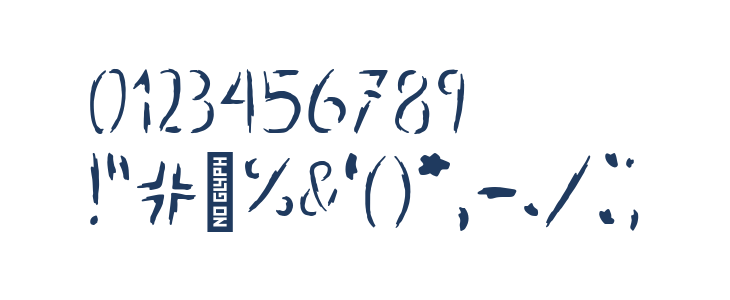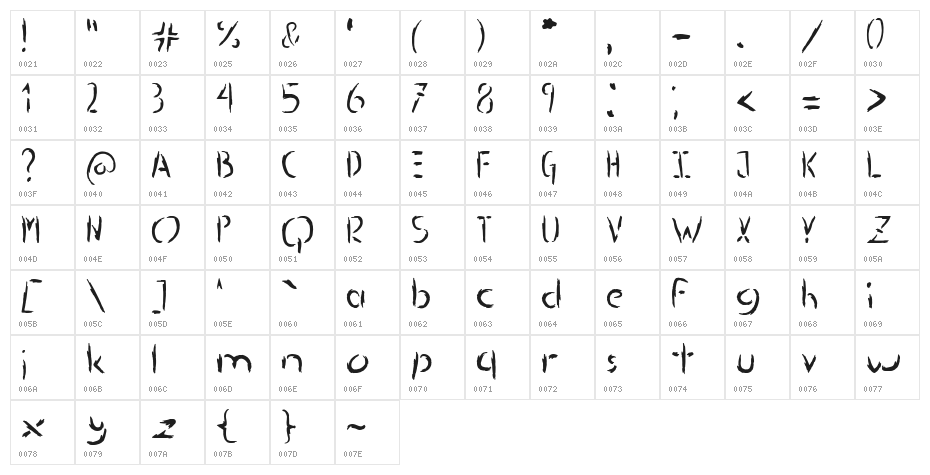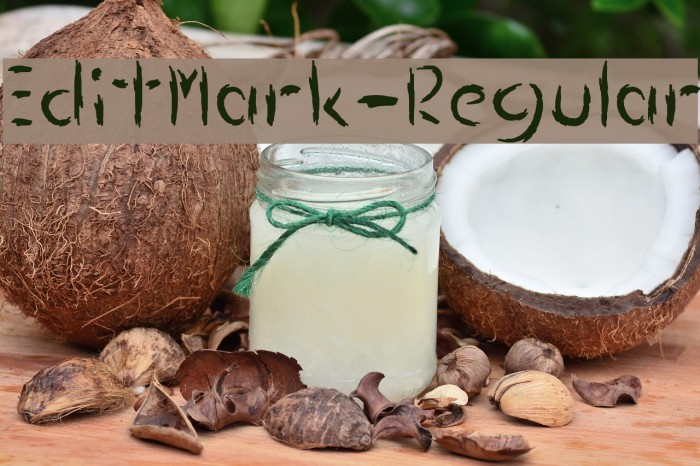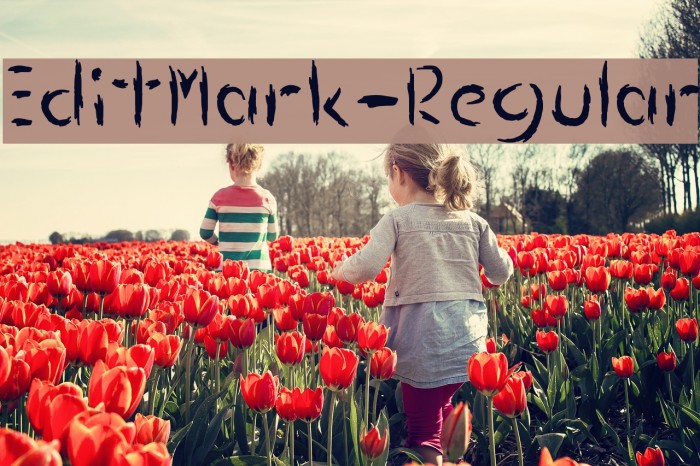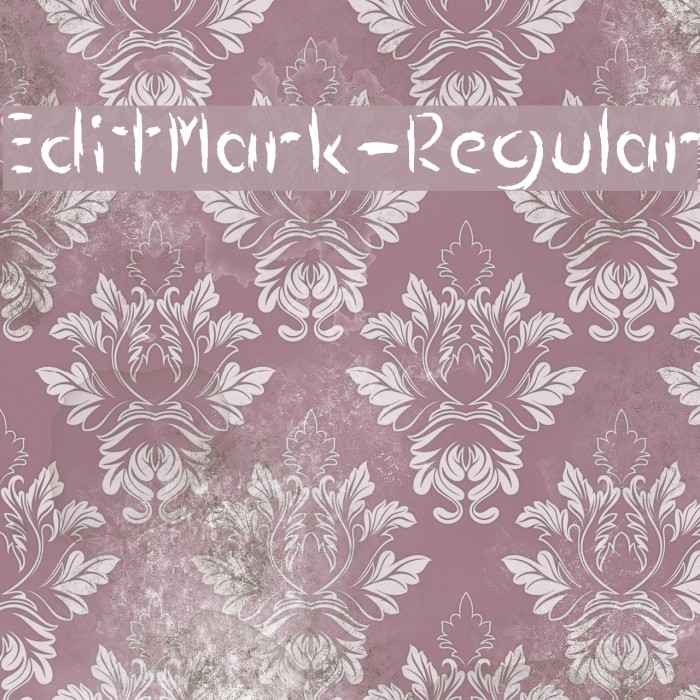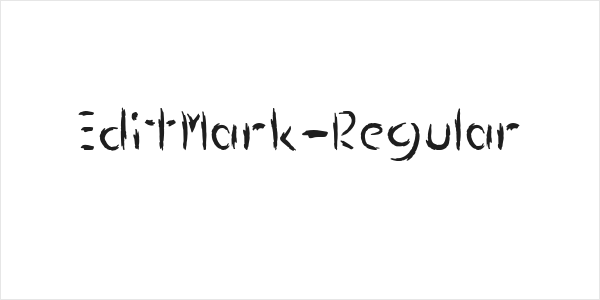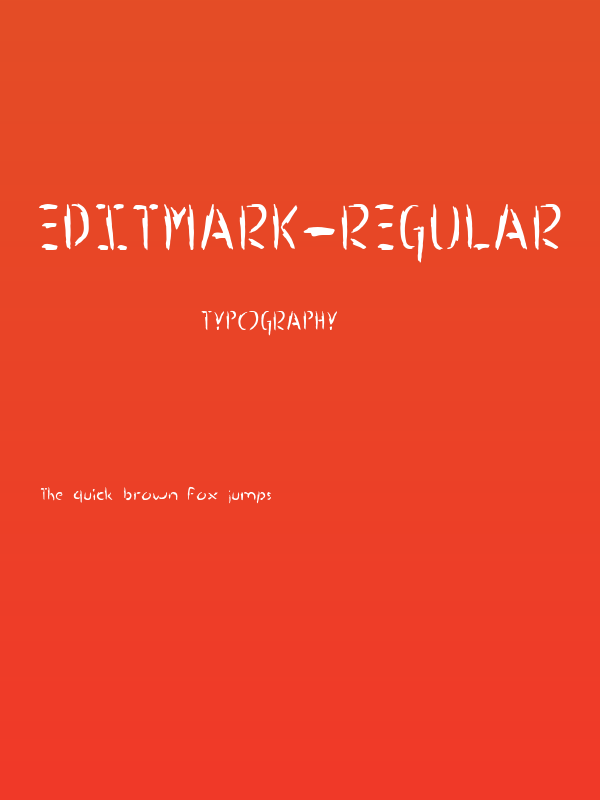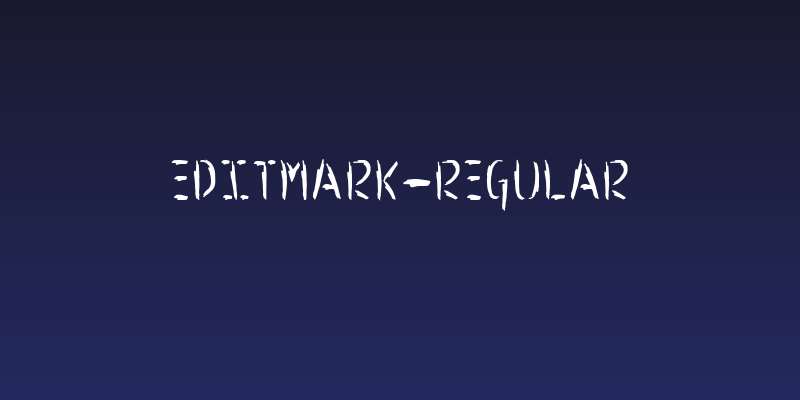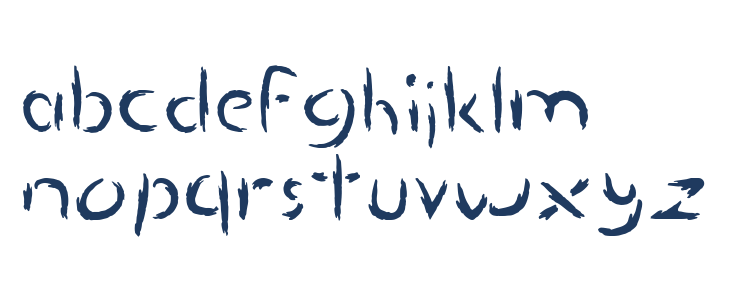
EditMark-Regular Font
EditMark-Regular Description
This font features a dynamic and artistic style, characterized by its brush-like strokes and irregular edges. The letters have a hand-drawn appearance, giving them a unique and expressive quality. The uppercase characters are bold and assertive, while the lowercase letters maintain a consistent flow, enhancing the overall organic feel. Numbers and special characters follow the same artistic theme, ensuring a cohesive look across all text elements. The font's distinctive style makes it suitable for creative projects that require a personal touch.
| Overall Style | Artistic, Expressive |
| Proposed Projects | Ideal for posters, artistic branding, creative invitations, and expressive headlines. |